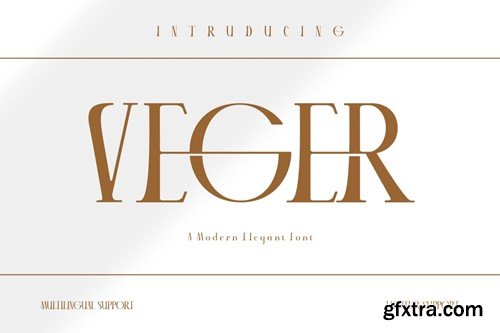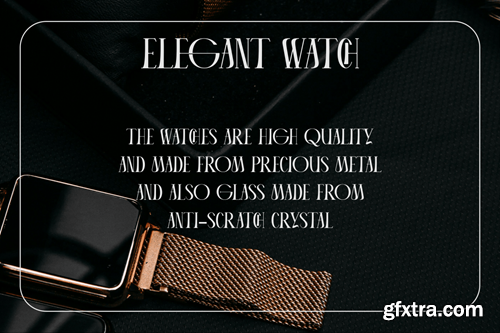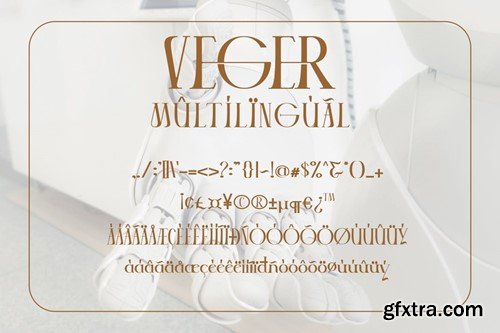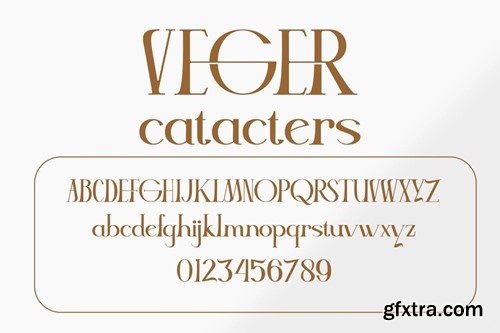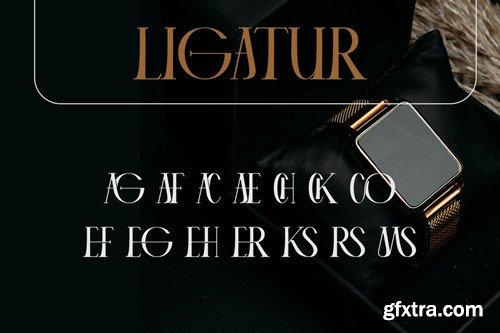
VEGER - Modern Elegant Font
Proudly present our new product VEGER - Modern Elegant Font is a modern and authentic font. Perfect for professional needs and product branding, this font is suitable for any branding project such as quotes, logos, blog headers, posters, ribbons, letters, invitations, stationery, etc... Designed to be versatile and flexible that can be used on a variety of projects and media. extraordinary in a variety of contexts. Available In file form for download Otf Ttf Woff Uppercase If you have any questions, queries or concerns please do not hesitate to contact us directly. Appearance and cover image Not included in the download file, just for presentation purposes only.